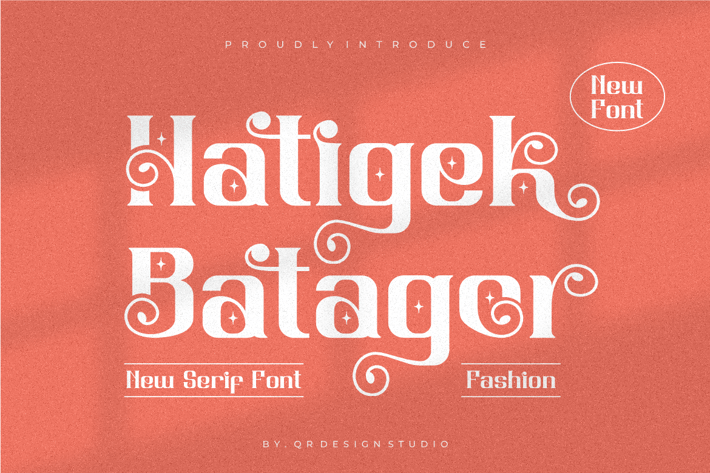
Hatigek Batagor - Serif Font
Hatigek Batagor - Serif Font is a bold and authentic display font.
The font is suitable for any branding project like poster, greeting card, food, logo, sport, and many more.